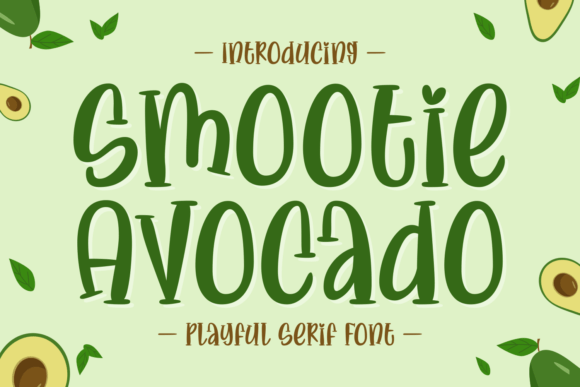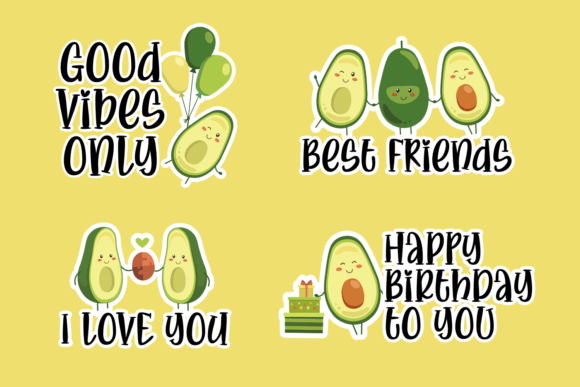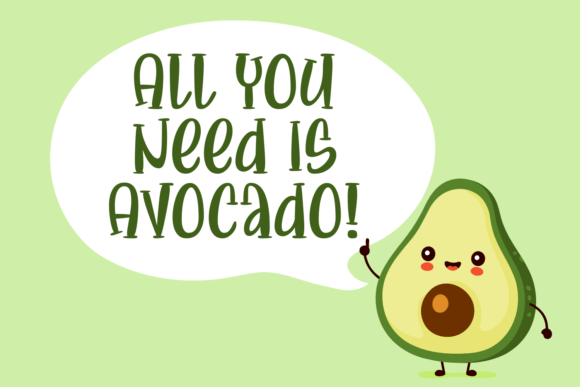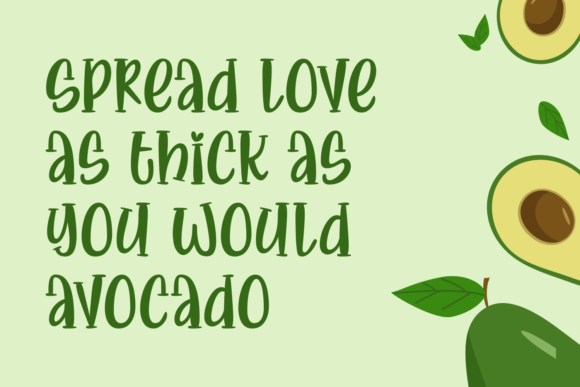
Smootie Avocado Font: A Cute Serif for Playful DIY & Cricut Designs
About the Smootie Avocado Font
Welcome to the world of Smootie Avocado Font, a typeface that will inspire your next great project. Allow your designs to speak out loud with Smootie Avocado, an enchanting serif font that oozes charm and playfulness. Its whimsical spirit is uniquely versatile, making it the perfect essence for everything from captivating invitations to heartwarming greeting cards, and even sophisticated branding efforts. Imbued with this versatile font, your creations will overflow with an appealing touch of fantastic whimsy and welcoming friendliness that is quintessentially Smootie Avocado. Embrace your designs with a new voice, let them sing the irresistible song of Smootie Avocado.
Smootie Avocado Font Usage Examples
Smootie Avocado Font Example